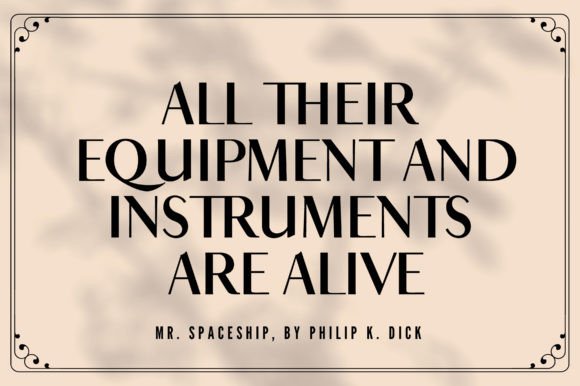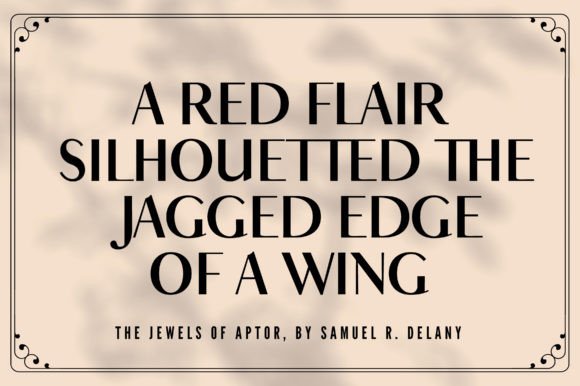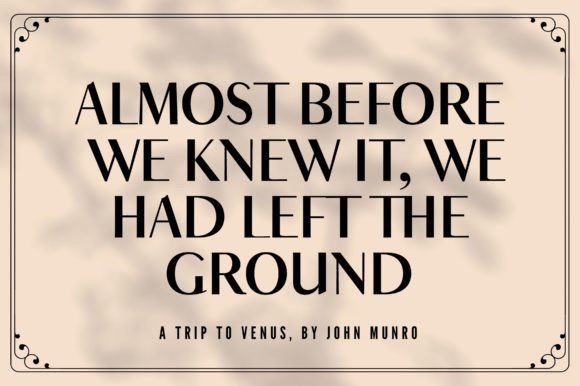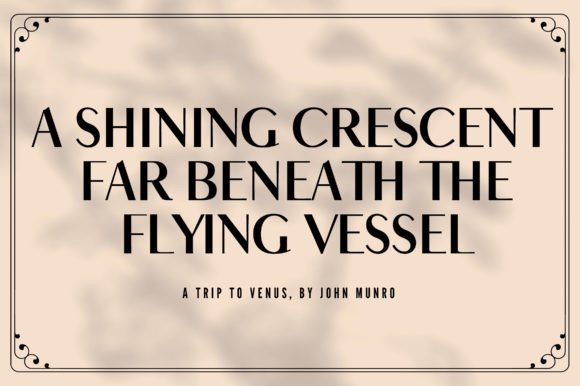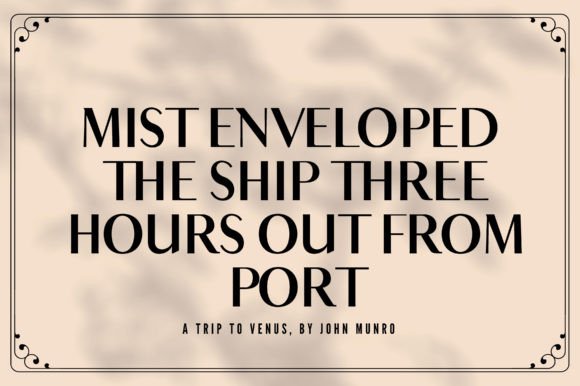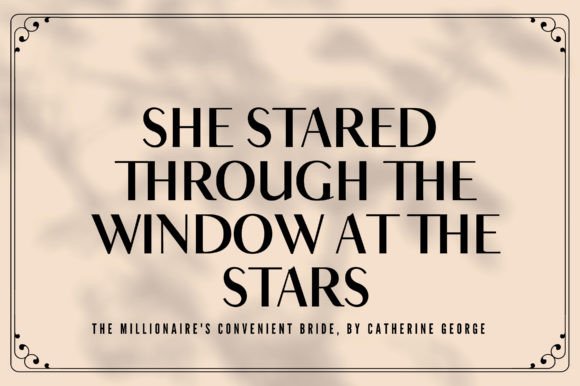
Introducing Amelia Font: Elevate Your Designs with Timeless Elegance
Are you searching for a font that embodies sophistication, delicacy, and chicness? Look no further than Amelia Font, a classic serif font that is sure to elevate your designs to the next level. With its refined design, wide range of stylistic options, and versatility, Amelia is the perfect choice for designers and crafters looking to add a touch of elegance to their projects.
A Timeless Design
Amelia Font boasts a timeless design that harkens back to the golden age of typography. Its thin and delicate strokes create a graceful flow that is both pleasing to the eye and easy to read. The serifs are perfectly balanced, adding a touch of class and formality to any text. This font’s refined design makes it perfect for use in print design, such as invitations, menus, and editorial layouts.
A Wide Range of Stylistic Options
One of the standout features of Amelia Font is its impressive range of stylistic options. With over 520 glyphs, this font offers a wide range of choices to suit any design need. Whether you’re looking to create a formal and elegant design or something more playful and creative, Amelia has the versatility to deliver. This extensive character set includes a range of letters, numbers, and punctuation marks, as well as stylistic alternates and ligatures, allowing you to customize your text to your heart’s content.
Perfect for Branding and Logo Design
Amelia Font is not only perfect for print design, but also works well for branding and logo design. Its refined and elegant design adds a touch of refinement and prestige to any business, making it ideal for companies looking to establish a sophisticated brand identity. The font’s classic design ensures that it will remain timeless and relevant, even as design trends come and go.
Use Amelia Font for a Variety of Projects
Amelia Font is a versatile font that can be used for a wide range of projects. Here are just a few ideas to get you started:
- Wedding Invitations: Add a touch of elegance and sophistication to your wedding invitations with Amelia Font.
- Book Covers: Create a stunning book cover with Amelia Font, perfect for fiction, non-fiction, or any genre in between.
- Menus: Elevate your restaurant or cafe’s menu with Amelia Font, adding a touch of refinement and class to your offerings.
- Editorial Layouts: Use Amelia Font to create stunning editorial layouts, perfect for magazines, newspapers, or online publications.
- Branding and Logo Design: Establish a sophisticated brand identity with Amelia Font, perfect for businesses looking to make a lasting impression.
Why Choose Amelia Font?
So why choose Amelia Font for your next design project? Here are just a few reasons:
- Timeless Design: Amelia Font’s classic design ensures that it will remain timeless and relevant, even as design trends come and go.
- Versatility: With over 520 glyphs, Amelia Font offers a wide range of stylistic options, making it perfect for a variety of design projects.
- Elegance: Amelia Font’s refined design adds a touch of elegance and sophistication to any text, making it perfect for designs that require a high level of refinement.
- Easy to Read: The font’s delicate strokes and balanced serifs create a graceful flow that is both pleasing to the eye and easy to read.
In conclusion, Amelia Font is a classic serif font that is sure to elevate your designs to the next level. Its timeless design, wide range of stylistic options, and versatility make it perfect for a variety of design projects, from print design to branding and logo design. Whether you’re a designer or crafter, Amelia Font is a must-have font that will add a touch of elegance and sophistication to any project.